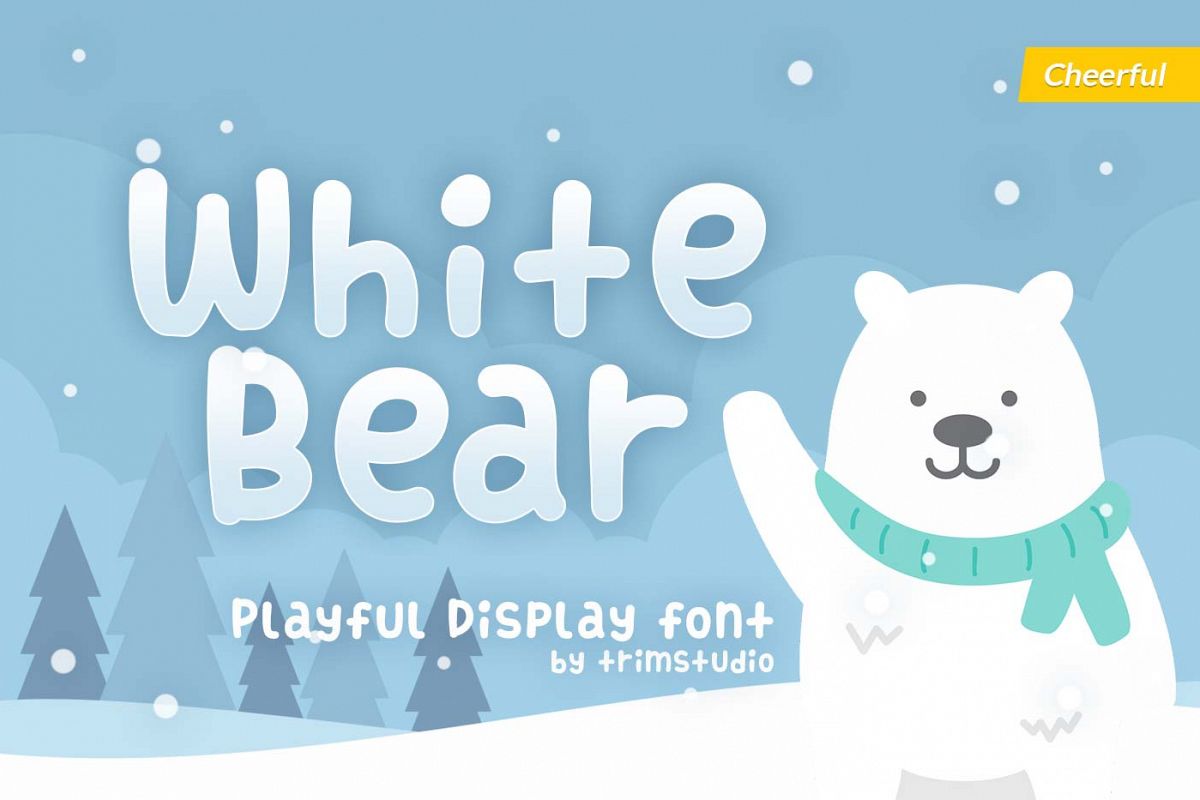
White Bear - Bold Cheerful Font
White Bear
White Bear - Bold Cheerful Font, perfect theme for fun project, it gives happiness to your designs
This font is perfect for branding, logo, store, blog, invitations any many more!